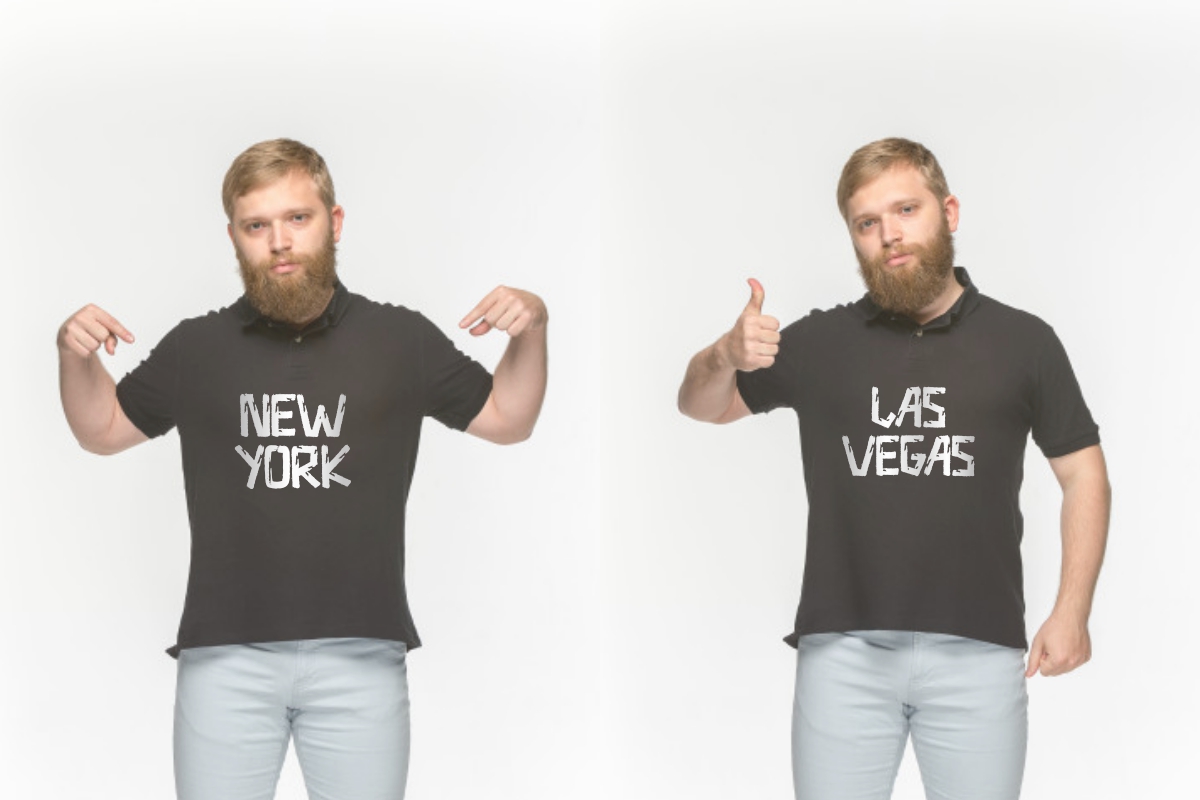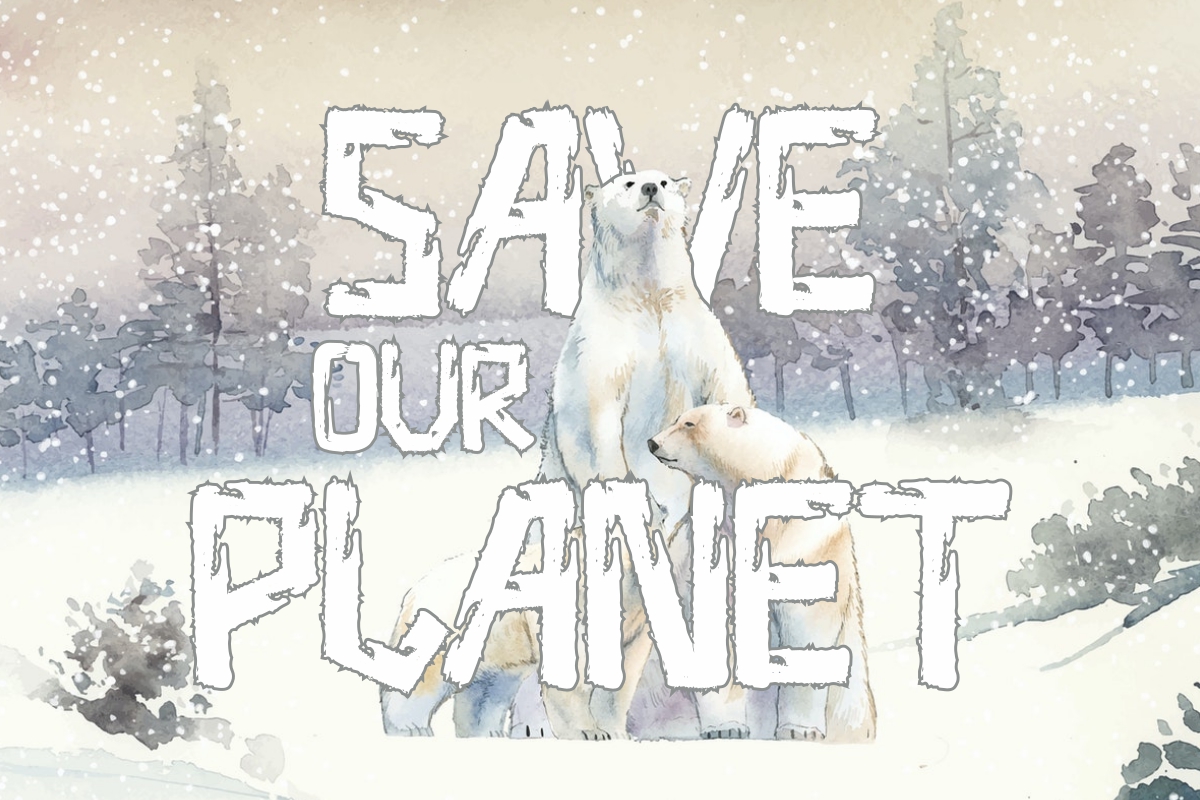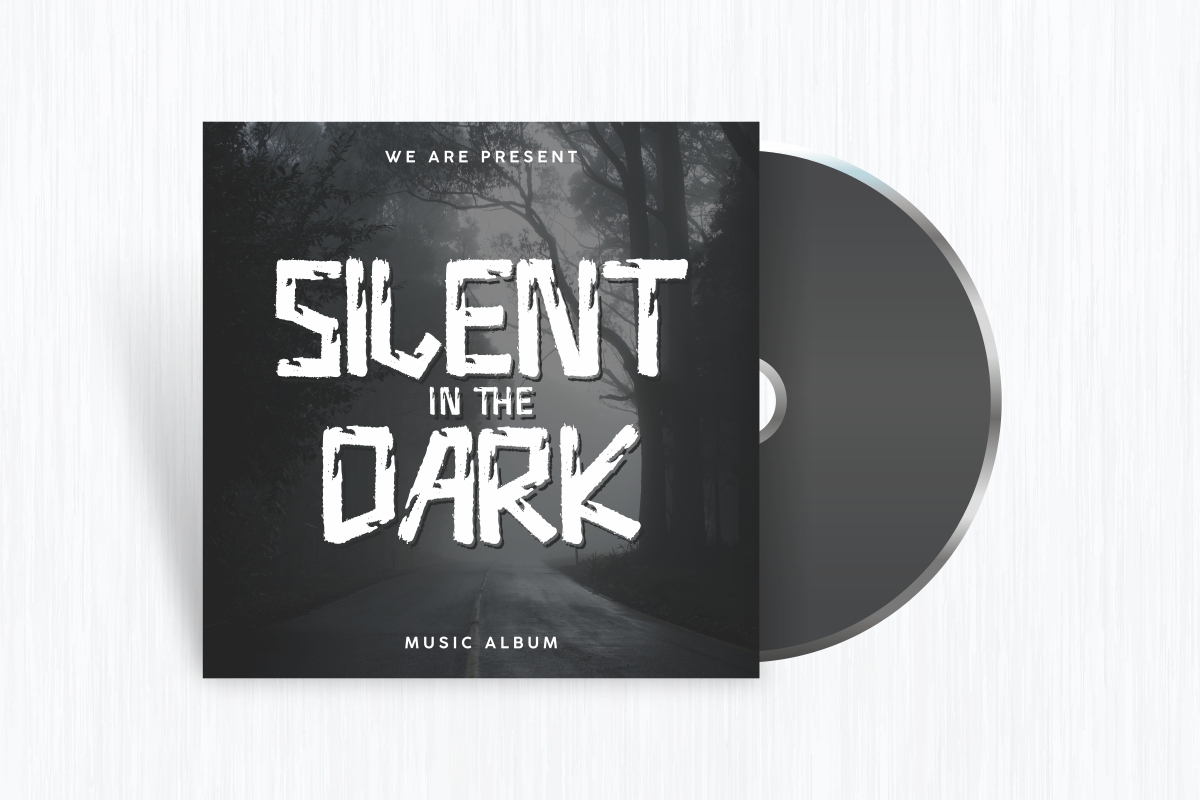
Snowbare Font
Snowbare Brush Font
This is a textured brush display font with ice snow theme style. This font has a stunning characters set, perfectly managed with well spaced and kerning. The theme style of this font will horror, movie, games, vintage and classic brush style. This is a winter themed brush display font, handcrafted specially for you to standout the crowd.
Snowbare Font will be great for any projects including : brandings, signage, flyer, brochure etc. Many industries and categories will be suitable for this font : events, comic, makeup artist, travel, cartoon, musician, magician etc